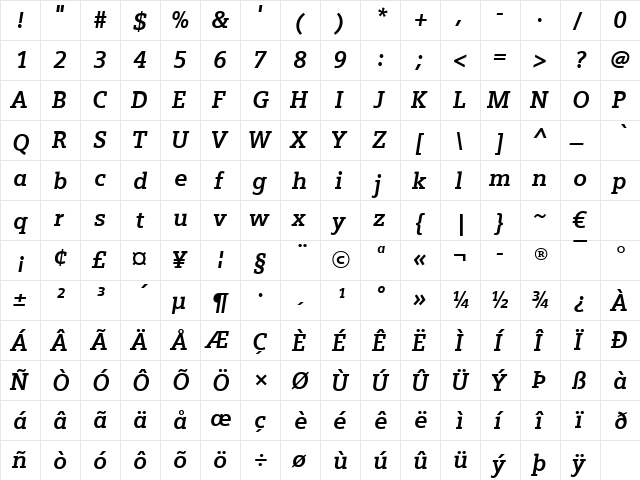
Siemens Slab Bold Italic Font Preview
Design Context for Siemens Slab Typeface
Siemens Slab features prominent, blocky serifs that give it a confident, grounded presence — equally at home in editorial settings and bold branding work. The dynamic lean of this cut emphasises speed and emphasis in any layout. Its bold stroke weight gives it real presence on the page.
Suited to magazines, political campaign materials, bold packaging, and any setting where authority matters.
Pro Tip: Use Siemens Slab for headlines and subheadings where its slab serifs can make an impression. It also holds up well in mid-size body copy thanks to its sturdy construction.